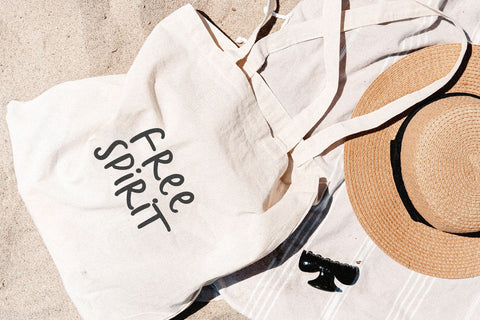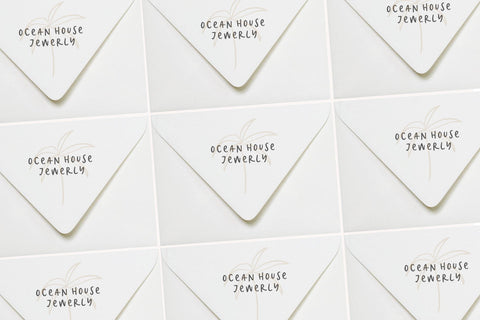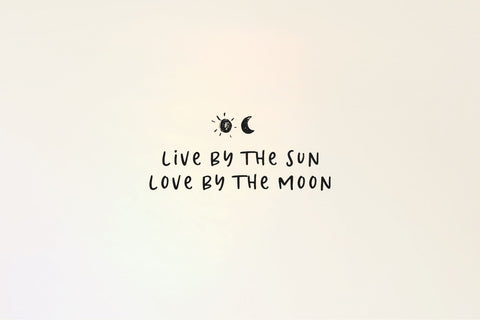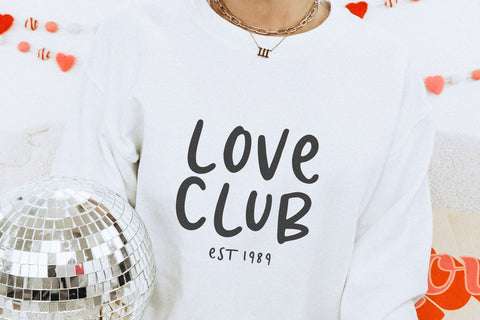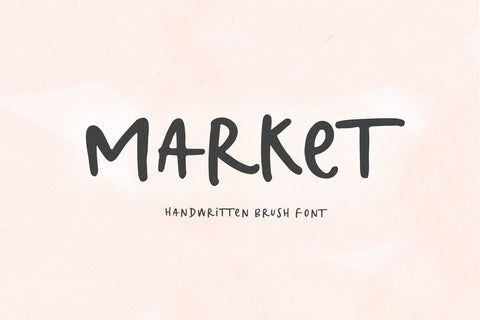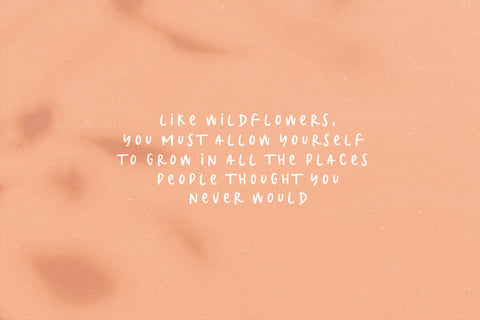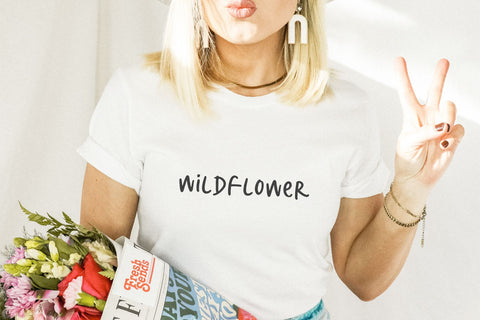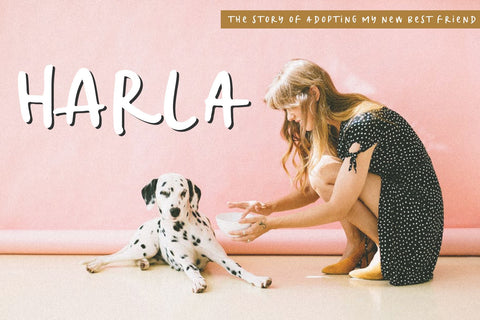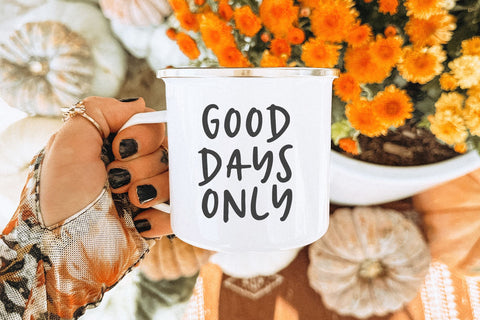
Market - Handwritten Font
Market is a handwritten font with a free-spirit vibe.
This font is perfect for branding, logos, shirt designs, cricut projects, quotes, social media and more!